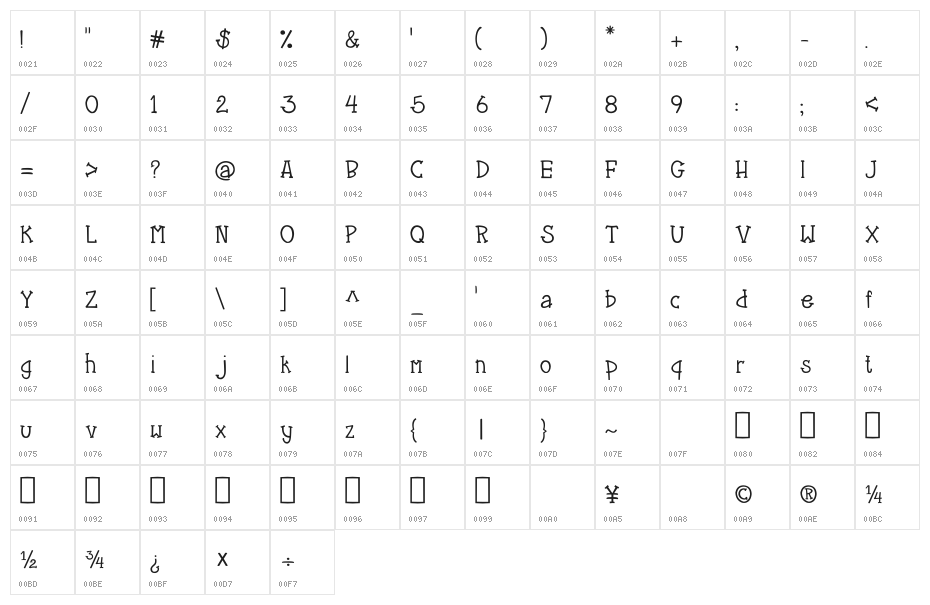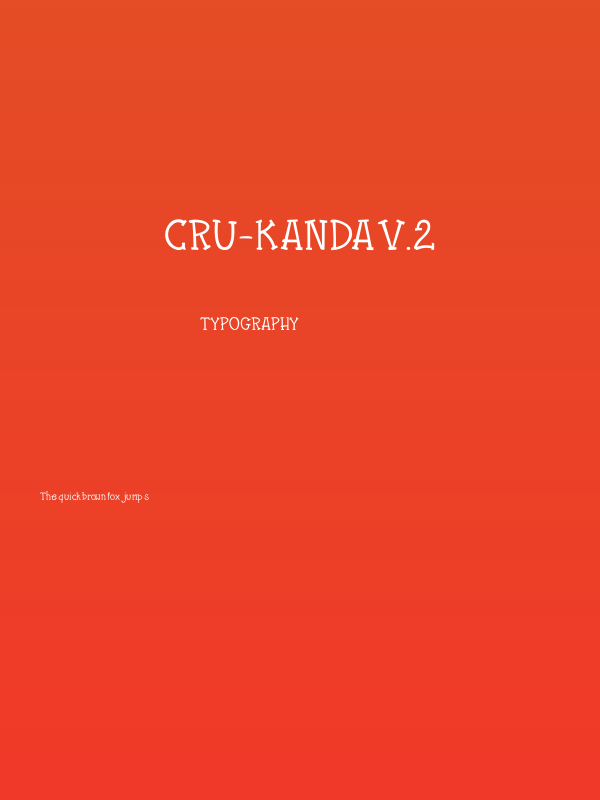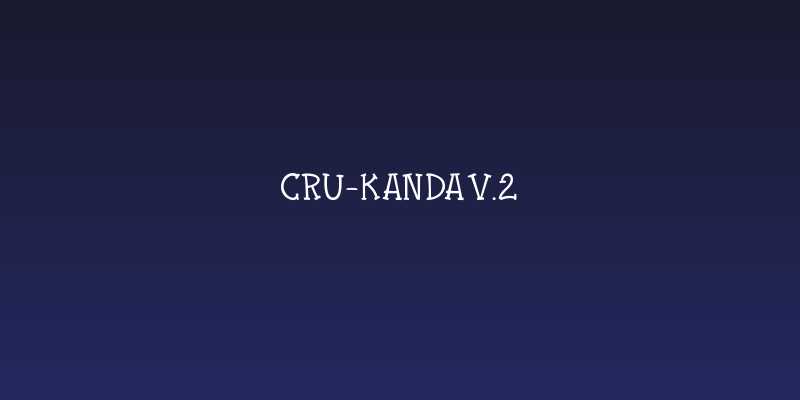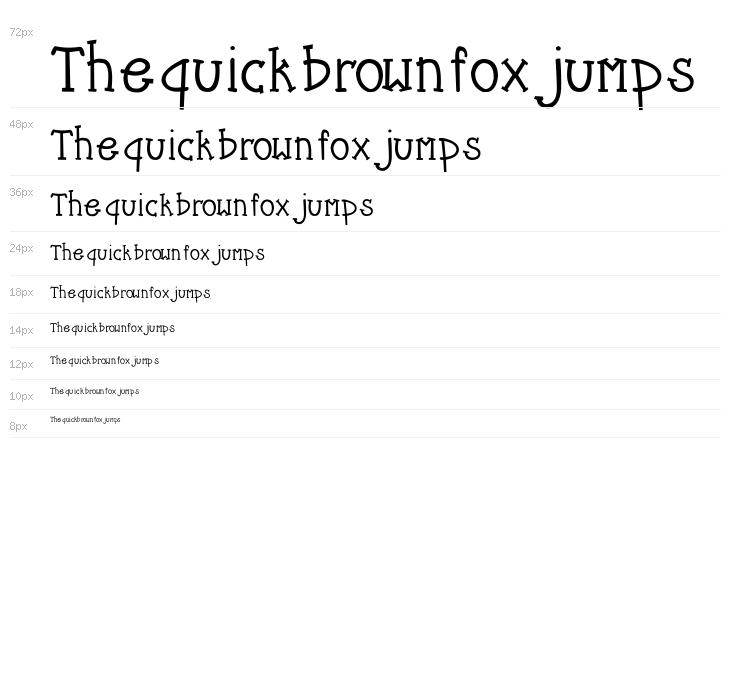
CRU-Kanda v.2 Font
CRU-Kanda v.2 Description
This font features a playful and whimsical style with a hand-drawn appearance. The characters have a slightly uneven baseline, adding to its casual and informal look. The strokes are moderately thick, with a slight variation in width that gives it a dynamic feel. The serifs are subtle and rounded, contributing to its approachable and friendly demeanor. The overall design is reminiscent of a handwritten script, making it suitable for projects that require a personal touch. The numerals and special characters maintain the same playful style, ensuring consistency across all text elements.
Overall StyleWhimsical
Use CaseHeadlines, Logos, Informal Text
Proposed ProjectsIdeal for children's books, greeting cards, playful branding, and creative posters.